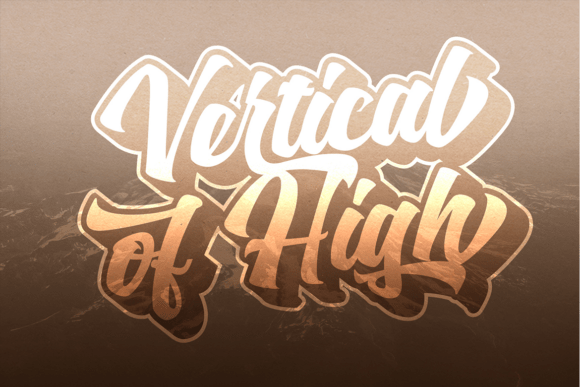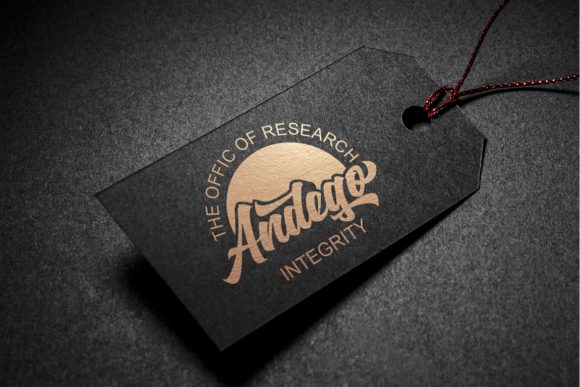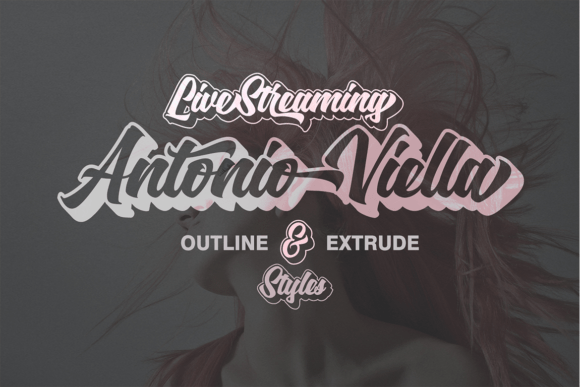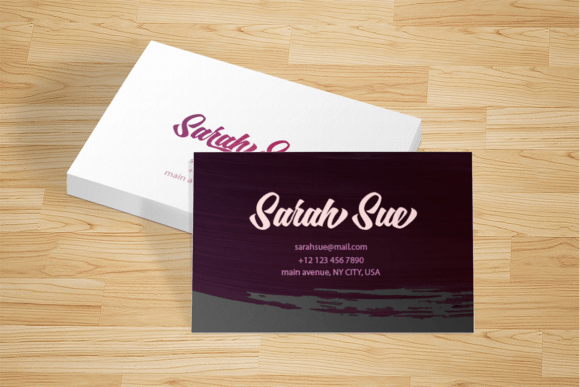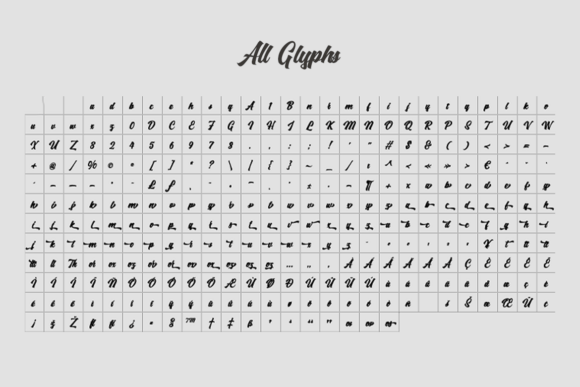
Introduction to Quintavy Font
Have you ever been stuck in front of a blank design canvas, desperately searching for the perfect font to bring your creative vision to life? It’s a moment we’ve all experienced, and it’s where the magic happens. For designers, finding the right font can be a game-changer – it can elevate a design from good to great, and give it the personality and character that sets it apart from the crowd. That’s exactly what the Quintavy Font does.
With its bold, high-impact script style, the Quintavy Font is a design resource like no other. Its unique combination of Extruded and Outline styles creates a striking 3D effect that adds depth and visual interest to any design. Whether you’re working on a high-quality sports branding project or creating a bold event poster, the Quintavy Font is the perfect choice.
Key Features of Quintavy Font
- High-quality design resource ideal for creative projects, offering a unique and professional touch.
- Comes in a single font style, perfect for those seeking a consistent and elegant look.
Honest Review: Quintavy Font
As a designer, I’m always on the lookout for high-quality design resources to elevate my creative projects. The Quintavy Font caught my attention, and I was eager to give it a try.
One of the standout features of this font is its versatility. It works well for both modern and vintage-inspired designs, making it a great addition to any design arsenal.
- ✨ Great for creative projects: The Quintavy Font is perfect for designers who want to add a touch of elegance and sophistication to their work.
However, I did encounter a few limitations. The font is not suitable for large-scale text, and it may not be the best choice for designs that require a bold, attention-grabbing font.
- ⚠️ Not ideal for large-scale text: The Quintavy Font may become difficult to read when used in large quantities.
- ⚠️ Limited bold options: If you’re looking for a font with a wide range of bold options, the Quintavy Font may not be the best choice.
Overall, I’m impressed with the Quintavy Font, and I would definitely recommend it to designers who are looking for a high-quality, versatile font for their creative projects.
How to Use Quintavy Font
The Quintavy Font is a high-quality design resource perfect for creative projects. With its unique style and versatility, it’s a great addition to any design collection.
Tips for Getting the Most Out of Quintavy Font
Use the Quintavy Font in combination with other design elements to create a unique and eye-catching design.
Experiment with different font sizes and colors to add depth and interest to your design.